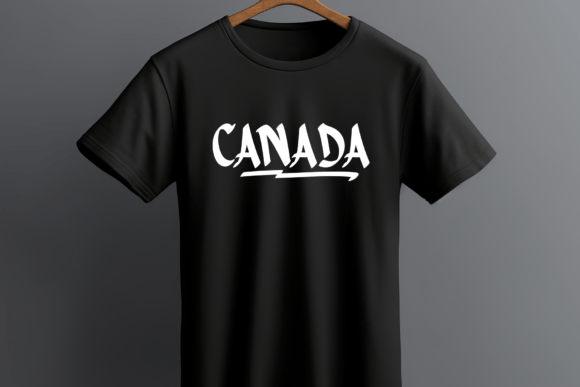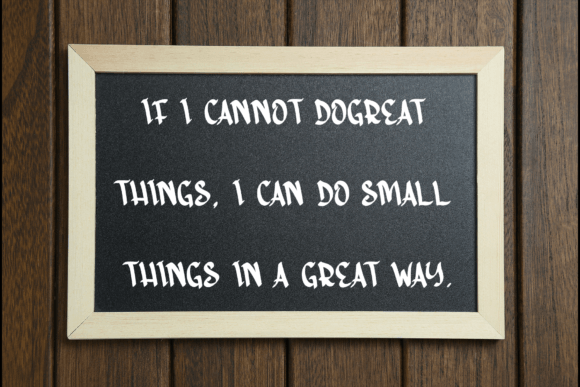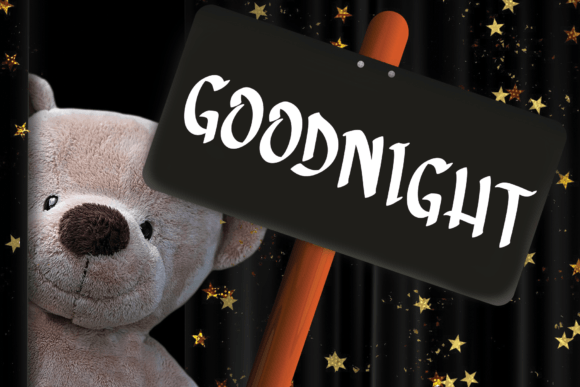
Introduction to Riding Font
Have you ever stumbled upon a design that immediately transports you to a sunny afternoon by the ocean? That’s exactly the feeling you get when you lay eyes on the Riding Font. Its carefree spirit and fluid strokes make it the perfect addition to any creative project. As a designer, you know how crucial it is to find that one special font that elevates your work to the next level.
With its high-quality design and transparent background, the Riding Font is a valuable resource for any creative project. Whether you’re working on a branding campaign or a social media graphic, this font adds a touch of warmth and personality that’s hard to find elsewhere. And the best part? It’s available for a free download, making it an accessible design resource for designers of all levels.
So why settle for a generic font when you can add a dash of whimsy and charm to your work with the Riding Font? In this article, we’ll explore the ins and outs of this delightful font and show you how to make the most of it in your next design project.
- Features a unique and stylish design, making it a great addition to any creative project.
Honest Review: Riding Font
I recently came across the Riding Font and I must say, it’s been a refreshing addition to my design library. This font has a lot going for it, starting with its high quality design that makes it perfect for a creative project. The transparent background is a nice touch, allowing you to easily layer it over images or other design elements.
- What works well: ✨ The font’s modern and sleek design makes it a great choice for a wide range of creative projects. The free download option is also a big plus, making it accessible to designers on a budget.
- What works well: ✨ The font is highly versatile and can be used for both digital and print projects, from website headers to magazine titles.
While the Riding Font is a great resource, there are a few limitations to be aware of. ⚠️ For one, the font may not be suitable for all types of projects, particularly those that require a more traditional or formal look. Additionally, some users may find the font to be a bit too modern or trendy, which may not be to everyone’s taste.
Overall, I’m impressed with the Riding Font and would recommend it to designers looking for a high-quality, free download font for their creative project. While it may not be perfect for every project, it’s definitely worth checking out.
Tips for Getting the Most Out of Riding Font
To get the most out of Riding Font, use it in combination with other design elements to create a unique look. Experiment with different font sizes, colors, and alignments to find the perfect fit for your design. You can also use the font in a variety of creative projects, from social media graphics to print materials.
Riding Font is a versatile font that can be used in a variety of creative projects, including:
- Print materials
- Marketing materials
Alternatives to Riding Font
Great Vibes Font is a high-quality, elegant script font suitable for creative projects that require a touch of sophistication. It’s available for free download and features a transparent background, making it ideal for layered designs. Great Vibes Font is a great alternative to Riding Font for projects that need a more refined, cursive look.
Alex Brush Font is a beautiful, handwritten font perfect for designers looking for a high-quality, creative design resource. It’s a great choice for projects that require a personal, handwritten touch. When compared to Riding Font, Alex Brush Font has a more subtle, elegant feel, making it suitable for a wider range of design applications.